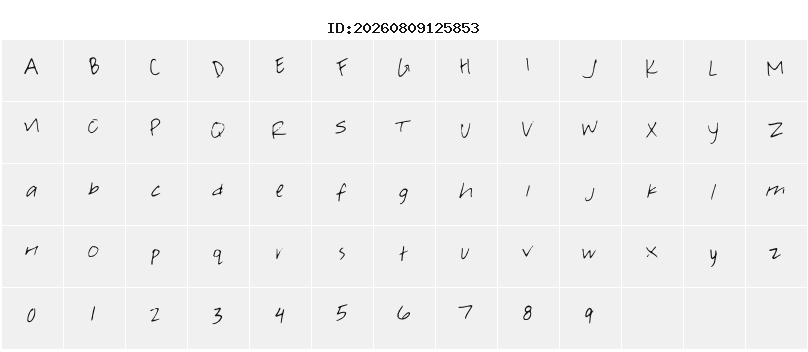
• Font Name: PeaRachel
About PeaRachel.ttf
PeaRachel.ttf is a modern, elegant sans-serif font designed for ultimate readability and visual harmony. Perfect for branding, headlines, web design, and print materials.